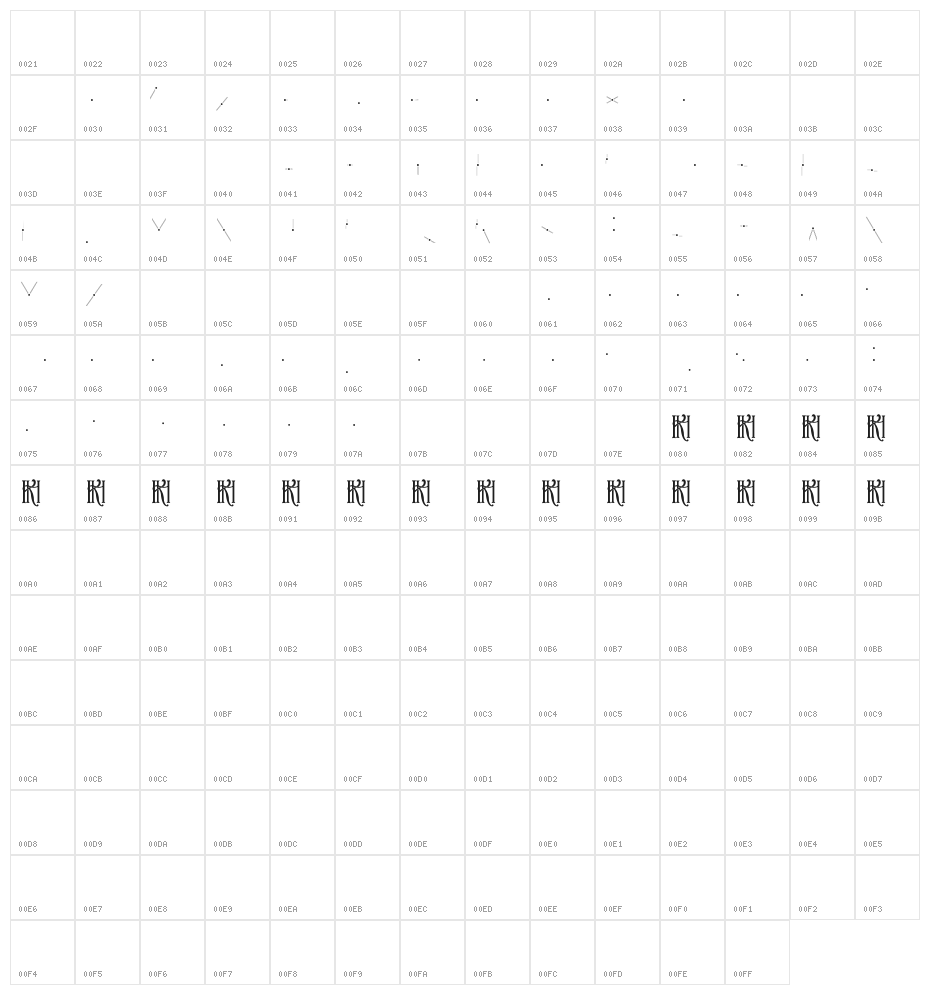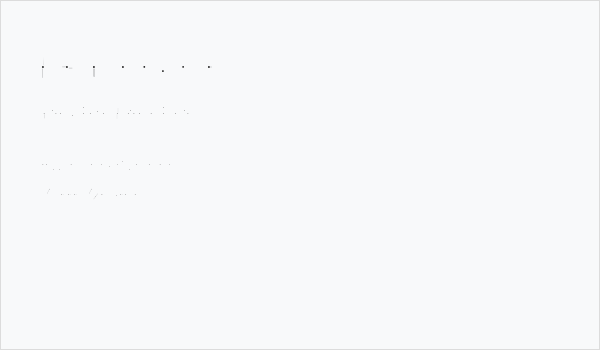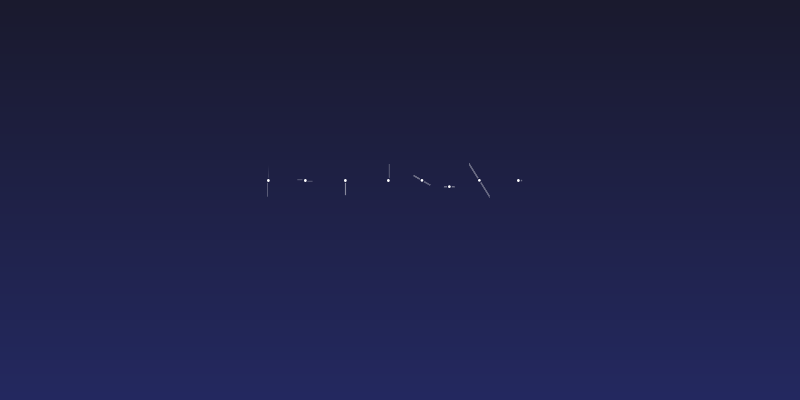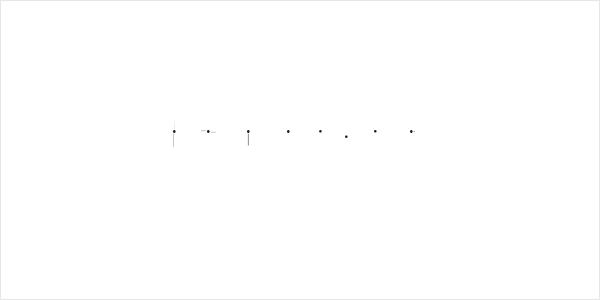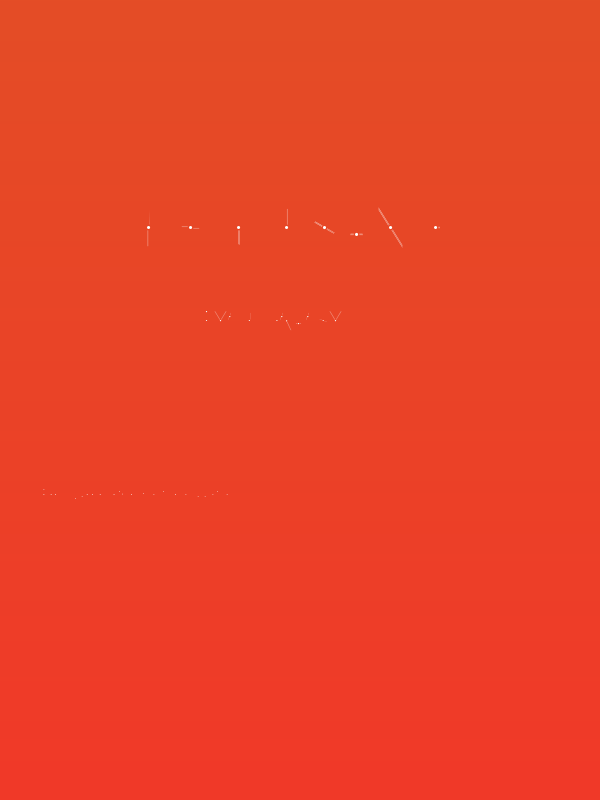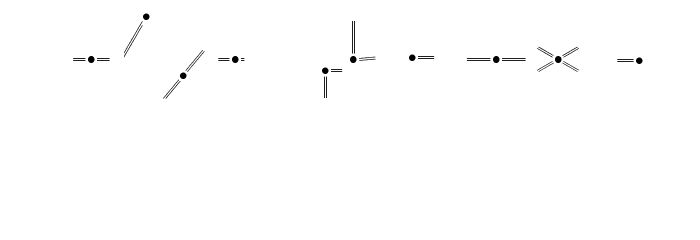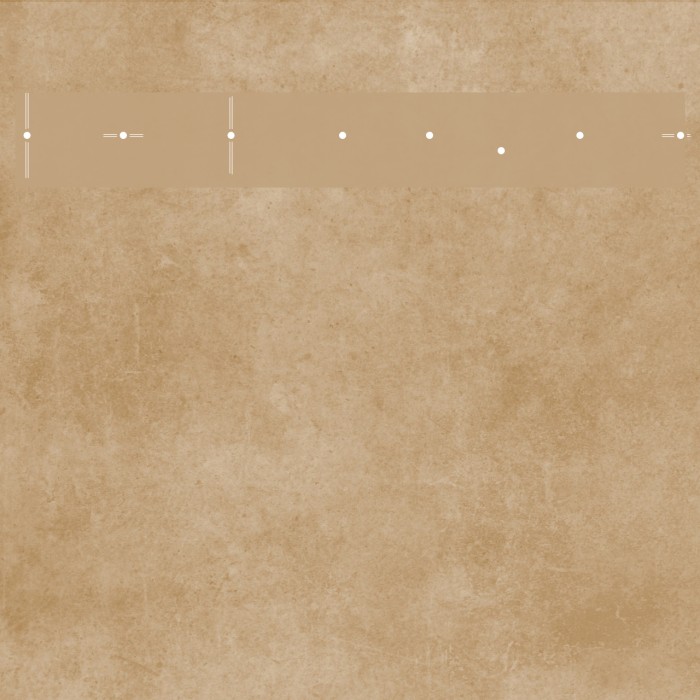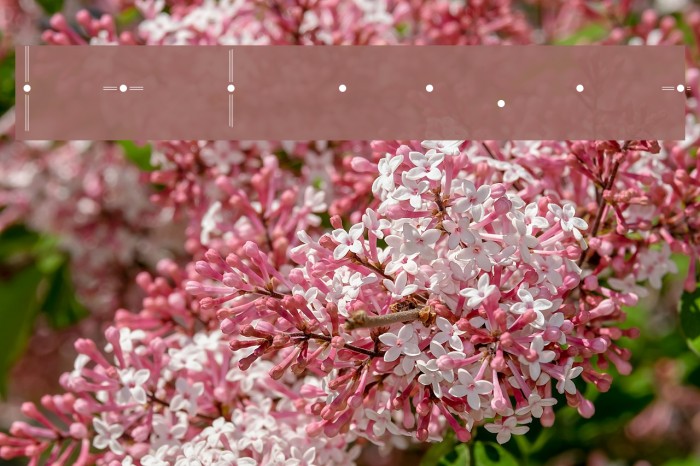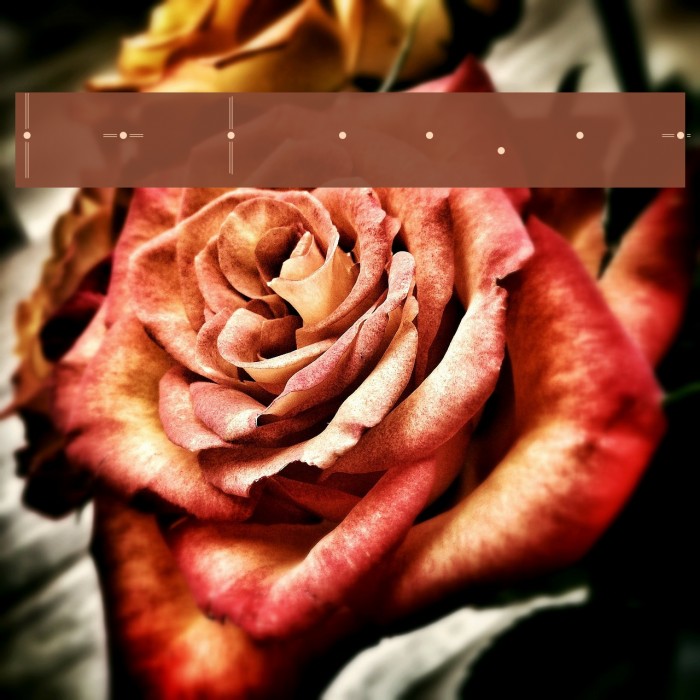
KH Cosan 3 Font
KH Cosan 3 Description
This design features a unique and abstract representation of characters using a combination of dots and lines. The characters are constructed with a minimalist approach, focusing on geometric shapes and precise alignments. The use of dots as focal points and lines as connectors creates a visually intriguing pattern that resembles a modern art piece rather than a traditional font. The overall aesthetic is avant-garde, making it suitable for creative and experimental projects.
KH-COSAN-3 UPPERCASE
KH-COSAN-3 LOWERCASE
KH-COSAN-3 OTHER CHARS
| Use Case | Logos, Art projects |
| Proposed Projects | Ideal for modern art installations, experimental design projects, and creative digital artwork. |